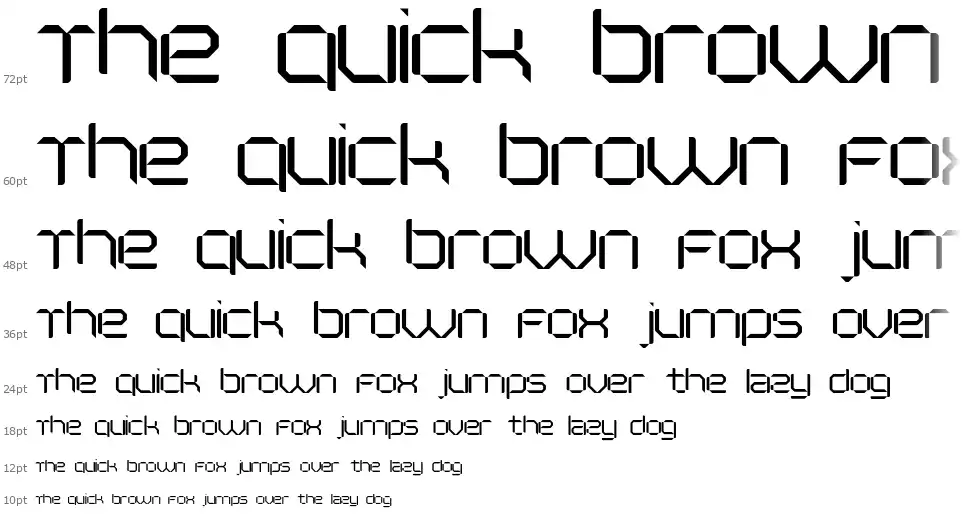
Eraserhead Font . Browse by alphabetical listing, by style, by author or by popularity. British 30×40″ quad poster design for david lynch’s eraserhead. Available in both ttf and otf. Eraserhead is a monospaced modular typeface. Download and install the eraserhead font for free from ffonts.net. ️ this font has been downloaded 20+ times. Get your very own free download of the eraserhead font, designed and created by mihai licanescu. Eraserhead download is available free from 8font.com. Eraserhead is a techno type font that can be used on any device such as pc, mac, linux, ios and android. It makes heavy use of itc serif gothic, with a particularly interesting curved effect applied to the main title. Archive of freely downloadable fonts.
Get your very own free download of the eraserhead font, designed and created by mihai licanescu. Available in both ttf and otf. It makes heavy use of itc serif gothic, with a particularly interesting curved effect applied to the main title. Eraserhead is a techno type font that can be used on any device such as pc, mac, linux, ios and android. Archive of freely downloadable fonts. ️ this font has been downloaded 20+ times. Eraserhead download is available free from 8font.com. Download and install the eraserhead font for free from ffonts.net. British 30×40″ quad poster design for david lynch’s eraserhead. Browse by alphabetical listing, by style, by author or by popularity.
Eraserhead Font Eraserhead is a monospaced modular typeface. Available in both ttf and otf. ️ this font has been downloaded 20+ times. Get your very own free download of the eraserhead font, designed and created by mihai licanescu. British 30×40″ quad poster design for david lynch’s eraserhead. Eraserhead is a monospaced modular typeface. Download and install the eraserhead font for free from ffonts.net. Eraserhead is a techno type font that can be used on any device such as pc, mac, linux, ios and android. It makes heavy use of itc serif gothic, with a particularly interesting curved effect applied to the main title. Browse by alphabetical listing, by style, by author or by popularity. Eraserhead download is available free from 8font.com. Archive of freely downloadable fonts.
Scarica Font Eraser Head Eraserhead Font Eraserhead download is available free from 8font.com. Eraserhead is a techno type font that can be used on any device such as pc, mac, linux, ios and android. Available in both ttf and otf. Download and install the eraserhead font for free from ffonts.net. Browse by alphabetical listing, by style, by author or by popularity. British 30×40″ quad poster design. Eraserhead Font.
eraserhead no. 4 _ typeface john s c simpson Eraserhead Font British 30×40″ quad poster design for david lynch’s eraserhead. Browse by alphabetical listing, by style, by author or by popularity. Get your very own free download of the eraserhead font, designed and created by mihai licanescu. It makes heavy use of itc serif gothic, with a particularly interesting curved effect applied to the main title. Eraserhead download is available free. Eraserhead Font.
Eraserhead Poster Artwork by Roland Topor · Creative Fabrica Eraserhead Font Eraserhead is a techno type font that can be used on any device such as pc, mac, linux, ios and android. Archive of freely downloadable fonts. ️ this font has been downloaded 20+ times. Get your very own free download of the eraserhead font, designed and created by mihai licanescu. Browse by alphabetical listing, by style, by author or by. Eraserhead Font.
Eraser Head Halloween Brush Font By Gens Creativ Store TheHungryJPEG Eraserhead Font Browse by alphabetical listing, by style, by author or by popularity. It makes heavy use of itc serif gothic, with a particularly interesting curved effect applied to the main title. Eraserhead download is available free from 8font.com. Download and install the eraserhead font for free from ffonts.net. Get your very own free download of the eraserhead font, designed and created. Eraserhead Font.
Eraser Head Font Eraserhead Font Browse by alphabetical listing, by style, by author or by popularity. Download and install the eraserhead font for free from ffonts.net. Eraserhead download is available free from 8font.com. It makes heavy use of itc serif gothic, with a particularly interesting curved effect applied to the main title. ️ this font has been downloaded 20+ times. British 30×40″ quad poster design. Eraserhead Font.
Eraserhead font Eraserhead Font Eraserhead is a monospaced modular typeface. It makes heavy use of itc serif gothic, with a particularly interesting curved effect applied to the main title. British 30×40″ quad poster design for david lynch’s eraserhead. Archive of freely downloadable fonts. Available in both ttf and otf. Eraserhead download is available free from 8font.com. Download and install the eraserhead font for free. Eraserhead Font.
Eraserheads Eheads Poster Collectible OPM Band, Hobbies & Toys Eraserhead Font It makes heavy use of itc serif gothic, with a particularly interesting curved effect applied to the main title. Eraserhead is a monospaced modular typeface. British 30×40″ quad poster design for david lynch’s eraserhead. Get your very own free download of the eraserhead font, designed and created by mihai licanescu. Archive of freely downloadable fonts. Browse by alphabetical listing, by. Eraserhead Font.
Eraserhead, The David Lynch Files Volume (hardback Eraserhead Font Eraserhead download is available free from 8font.com. Browse by alphabetical listing, by style, by author or by popularity. Get your very own free download of the eraserhead font, designed and created by mihai licanescu. Eraserhead is a monospaced modular typeface. Archive of freely downloadable fonts. Eraserhead is a techno type font that can be used on any device such as. Eraserhead Font.
Eraser Head font Eraserhead Font British 30×40″ quad poster design for david lynch’s eraserhead. Get your very own free download of the eraserhead font, designed and created by mihai licanescu. Eraserhead is a monospaced modular typeface. Eraserhead download is available free from 8font.com. Eraserhead is a techno type font that can be used on any device such as pc, mac, linux, ios and android. It. Eraserhead Font.